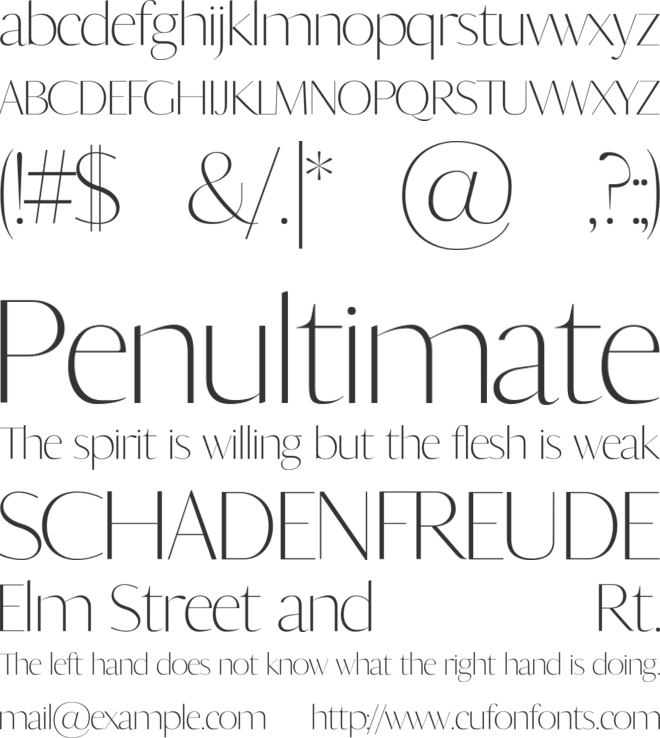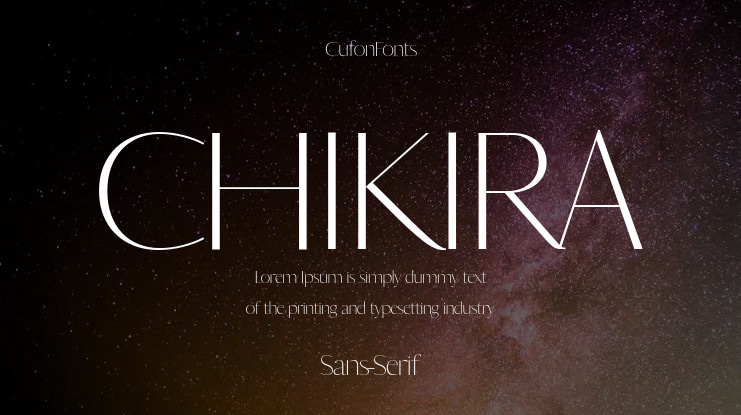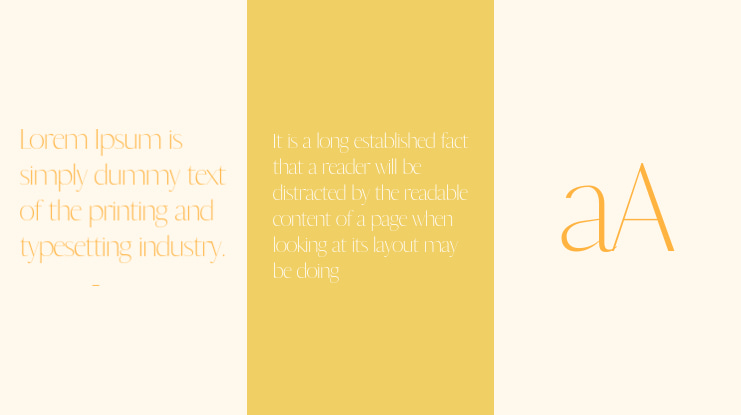
CHIKIRA Font Family
Chikira is a delicate sans serif with soft geometry and multilingual support—perfect for minimalist branding, poetic layouts, and lifestyle packaging.